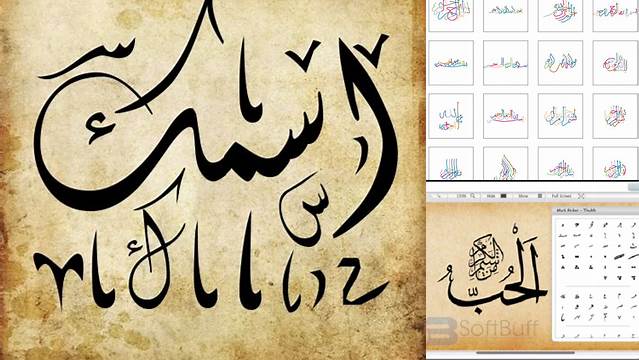
Are you captivated by the mesmerizing beauty of Arabic calligraphy? Do you want to infuse your designs with the elegance and artistic flair of this ancient art form? Well, you're in luck! In this comprehensive guide, we'll explore the world of Arabic calligraphy font generators, providing you with the resources and inspiration you need to create stunning visual masterpieces. We will discuss how these tools can help you generate various styles and we'll also provide you some tips on how to use them effectively. So, grab your creative hats, guys, and let's dive in!
Discover the Magic of Arabic Calligraphy Fonts
Arabic calligraphy is more than just writing; it's an art form that has captivated hearts for centuries. The fluid strokes, intricate curves, and harmonious compositions evoke a sense of grace and sophistication. But what if you're not a seasoned calligrapher? That's where Arabic calligraphy font generators come to the rescue. These amazing tools allow you to create beautiful Arabic script without the need for years of practice. You can simply type in your desired text, choose from a variety of fonts and styles, and voila – instant artistic expression! Arabic calligraphy font generators offer a fantastic way to add an authentic touch to your designs, whether you're creating logos, posters, invitations, or social media graphics. These generators often provide a range of customization options, allowing you to adjust the size, color, and spacing of your text. Experimenting with different styles and settings can lead to unique and eye-catching results. By using Arabic calligraphy fonts, you can convey a sense of tradition, culture, and artistry in your work. It's a powerful way to make a statement and connect with your audience on a deeper level. So, don't be afraid to explore the possibilities and let your creativity flow! Keep in mind, the best designs are often the result of combining traditional techniques with modern tools. So, while font generators are incredibly useful, understanding the fundamentals of Arabic calligraphy will enhance your overall artistic vision. Think of these tools as a stepping stone to exploring the rich heritage of Arabic script and finding your own creative voice within it. The world of Arabic calligraphy is vast and diverse, offering endless opportunities for experimentation and innovation. With the help of font generators, you can tap into this rich tradition and create designs that are both beautiful and meaningful.
Why Use an Arabic Calligraphy Font Generator?
So, why should you, my friend, even bother with an Arabic calligraphy font generator? Well, let me tell you, there are a ton of reasons! First off, they're super accessible. You don't need to be a pro calligrapher with years of training to create stunning Arabic script. These generators basically democratize the art, making it available to anyone with a computer and an internet connection. Think about it – you can add that touch of elegance and authenticity to your projects without spending a fortune on custom calligraphy or struggling with shaky hands and ink spills. Plus, they're incredibly versatile. Need a logo for your Middle Eastern-inspired restaurant? How about some eye-catching invitations for a cultural event? Or maybe you just want to spice up your social media posts with some beautiful Arabic text? An Arabic calligraphy font generator can handle it all. You can experiment with different styles, sizes, and colors until you find the perfect fit for your project. And let's not forget the time-saving aspect. Creating calligraphy by hand can be a slow and meticulous process. But with a font generator, you can whip up beautiful designs in minutes. That means more time for you to focus on the other important aspects of your project, like content, layout, and overall aesthetics. But here's the real kicker: Arabic calligraphy font generators can actually inspire you. By playing around with different fonts and styles, you might stumble upon combinations you never would have thought of otherwise. It's like having a virtual calligraphy tutor guiding you along the way. And who knows? Maybe you'll even get inspired to learn traditional calligraphy techniques yourself! So, yeah, using an Arabic calligraphy font generator is a pretty sweet deal. It's accessible, versatile, time-saving, and even inspiring. What's not to love? Whether you're a professional designer or just someone who appreciates the beauty of Arabic script, these tools are a fantastic way to add a touch of magic to your creations.